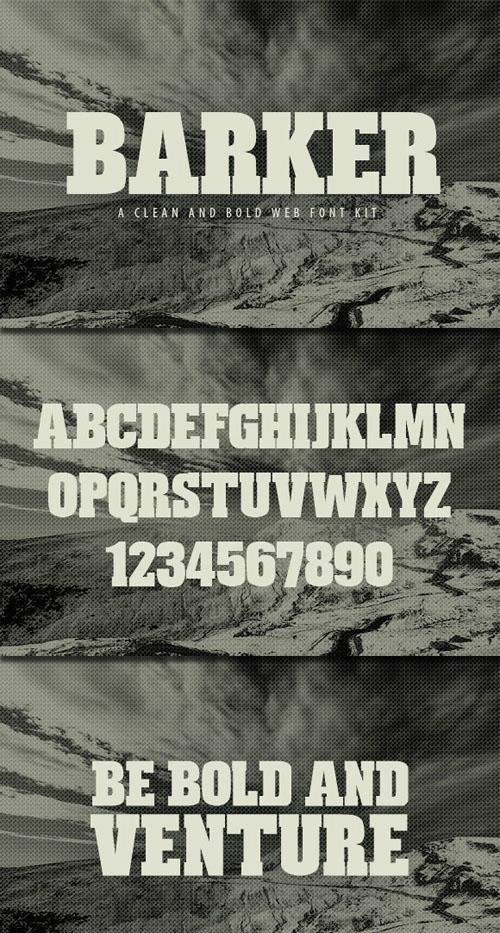
Barker: A Bold Web Font Kit
Barker is a thick and bold all-caps font face. It?s excellent for use as titles, headlines, and buttons. Using Barker says something about you. It implies boldness with a little bit of risk and recklessness on the side.